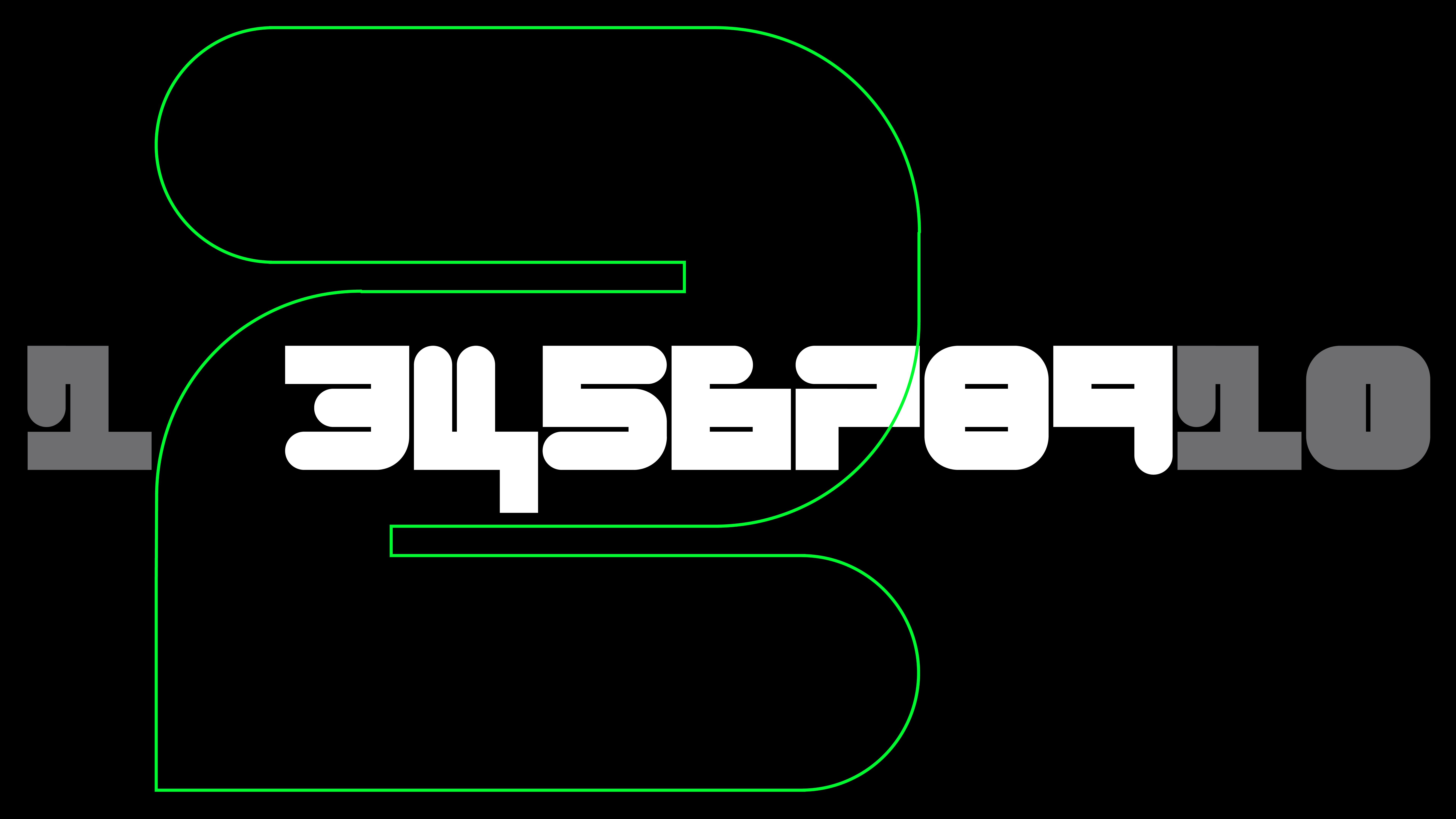
F37 One Two
F37 OneTwo wilfully contradict convention and reinvigorates the love of early digital design.
F37 OneTwo champions the experimental possibility of letterforms. This uni-case and mono-spaced font from Haider Muhdi embodies early digital type and graphic design, in particular the work from Emigre and Jeffery Keedy. The distinct mixing of round and straight lines is a key feature of both Keedy and F37 OneTwo. The compact proportions make F37 OneTwo perfect for tight leading and compact layouts. Also included in the font are an array of serifed alternates to add versatility.
The Designer
Graduated from Lancaster University with first class honours, Haider has collaborated with some of the most prolific design and advertising agencies such as Uncommon Creative Studio, Wolff Olins, Mother Design, Droga5, Landor and R/GA.
Haider maintains a diverse client list with the likes of EA Sports FC, Nike, Virgin, New York Fashion Week, Uber and Fac 51 / The Haçienda to name a few. A conscientious all round designer and typographer with an appetite for brand disruption and a keen eye for art direction. His approach is always based on a strong conceptual vision married with an elegant design solution. His work has won recognition from Cannes Lion, D&AD, RSA and Type Directors Club.